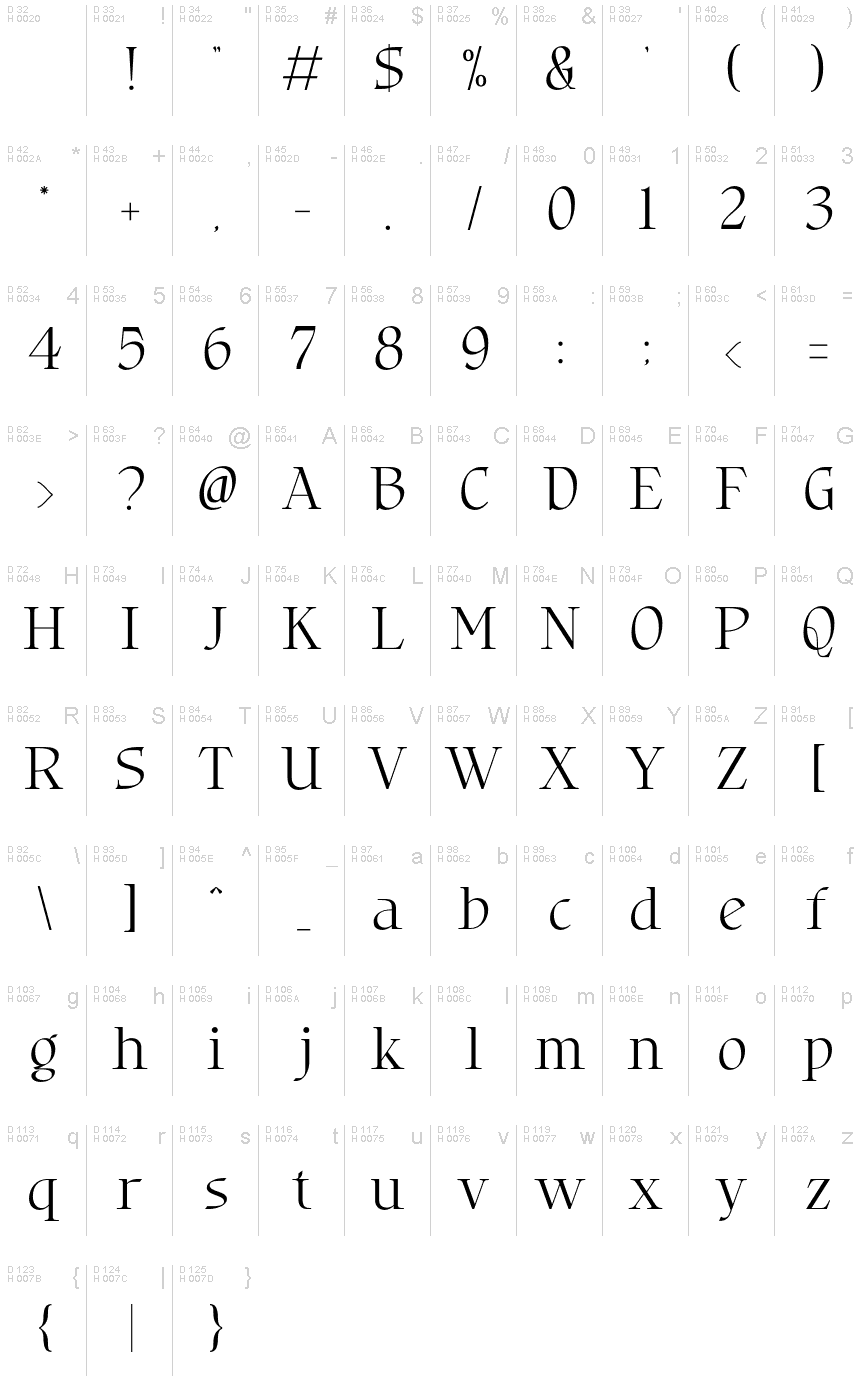
Bligra
Bligra, a mesmerizing semi-light serif font by BrandSemut, is here to captivate your audience with its elegant and refined style. With its balanced letterforms and gentle strokes, Bligra exudes sophistication and professionalism.
Perfect for corporate identities, branding projects, and editorial designs, this font adds a touch of class to any medium. Its versatility also makes it suitable for wedding invitations, book covers, and luxury product packaging.
Let Bligra be the voice of your next project as it effortlessly combines timeless beauty with contemporary design.